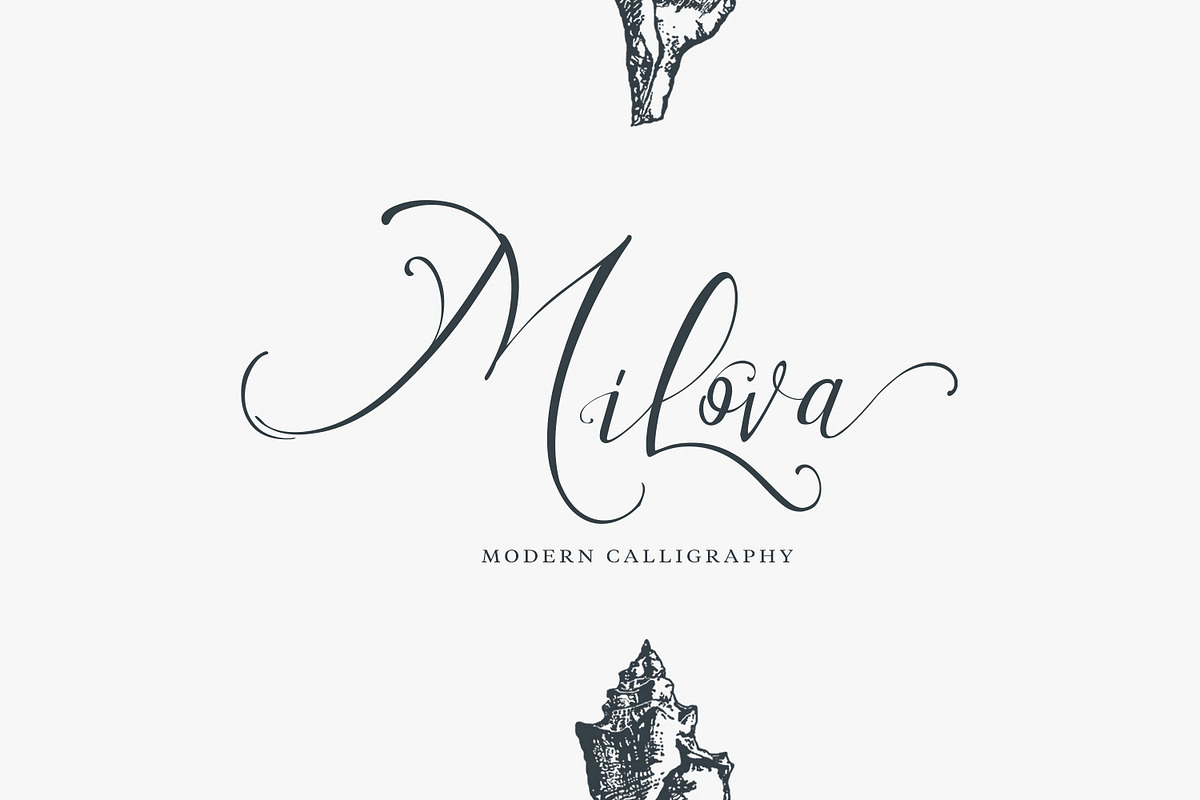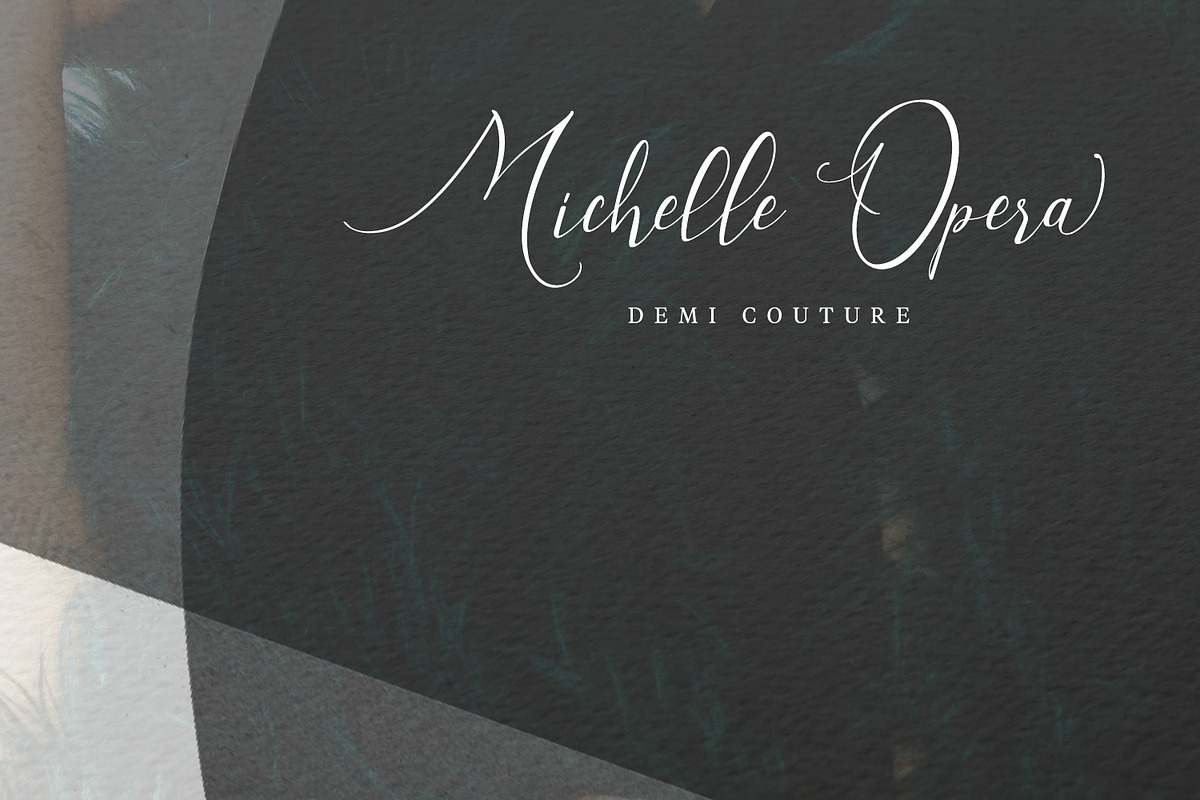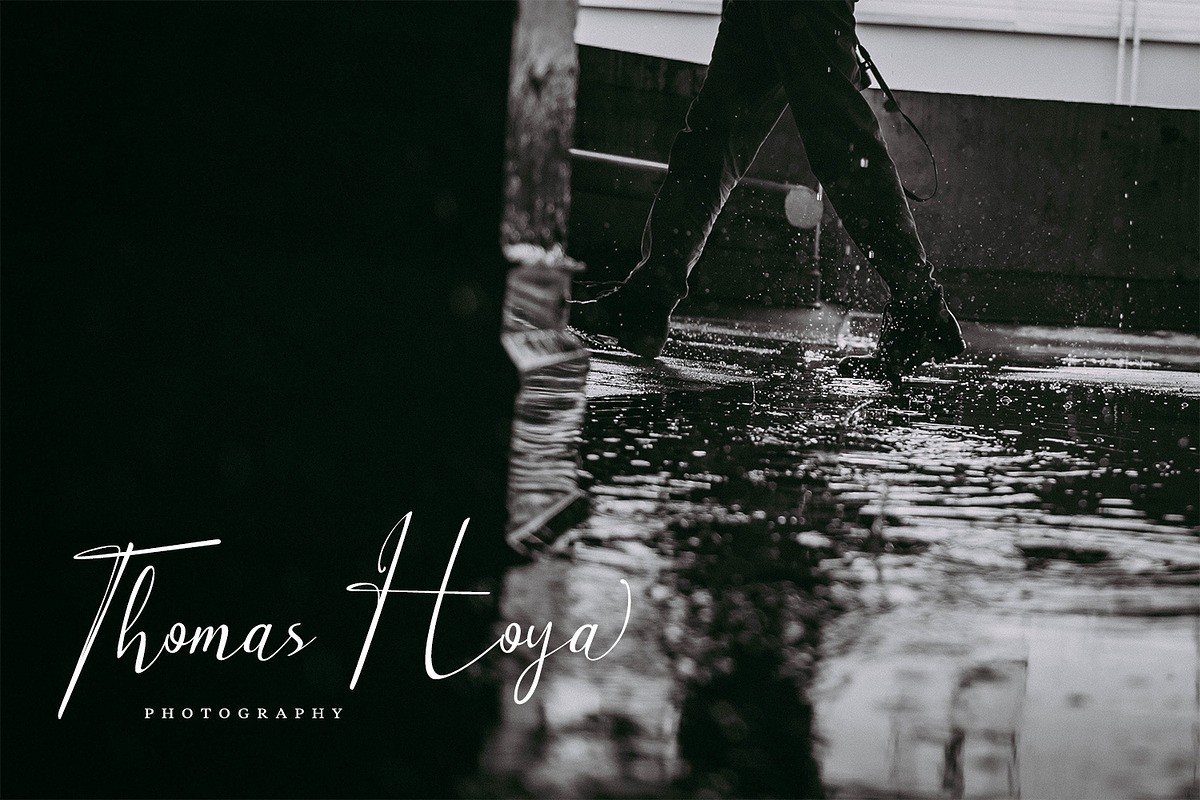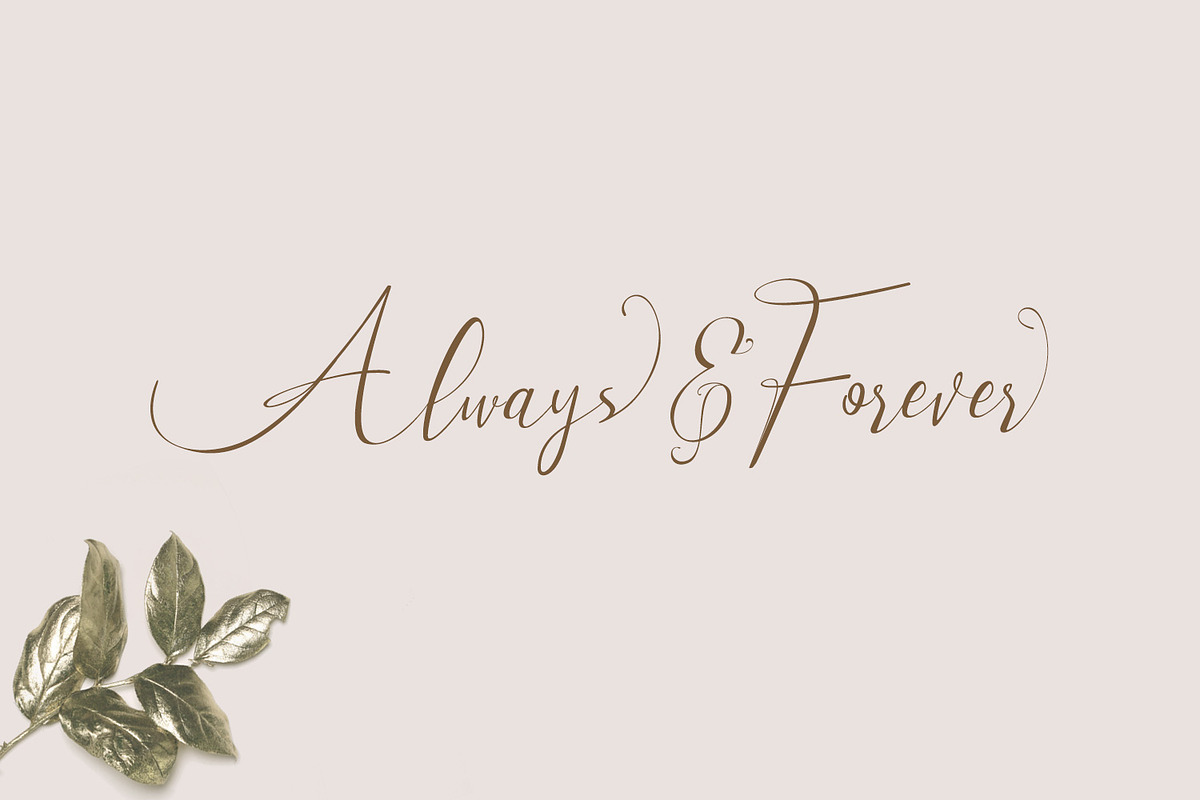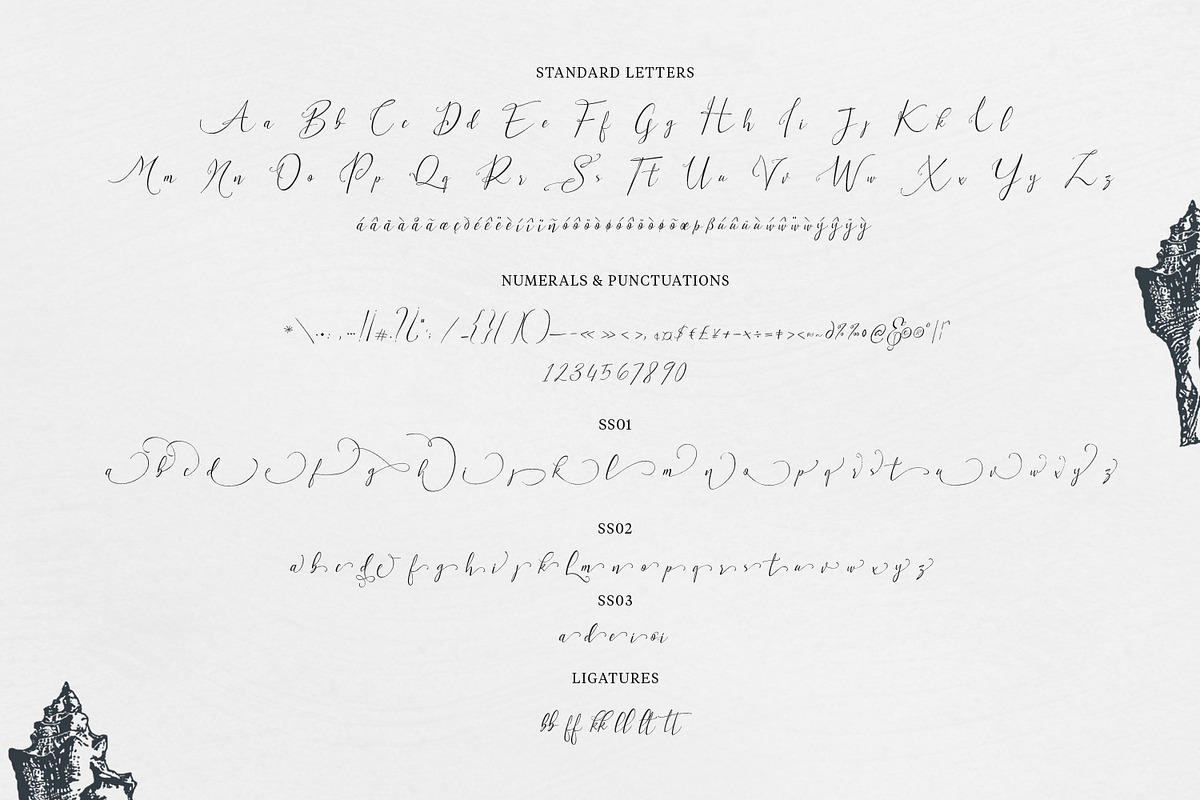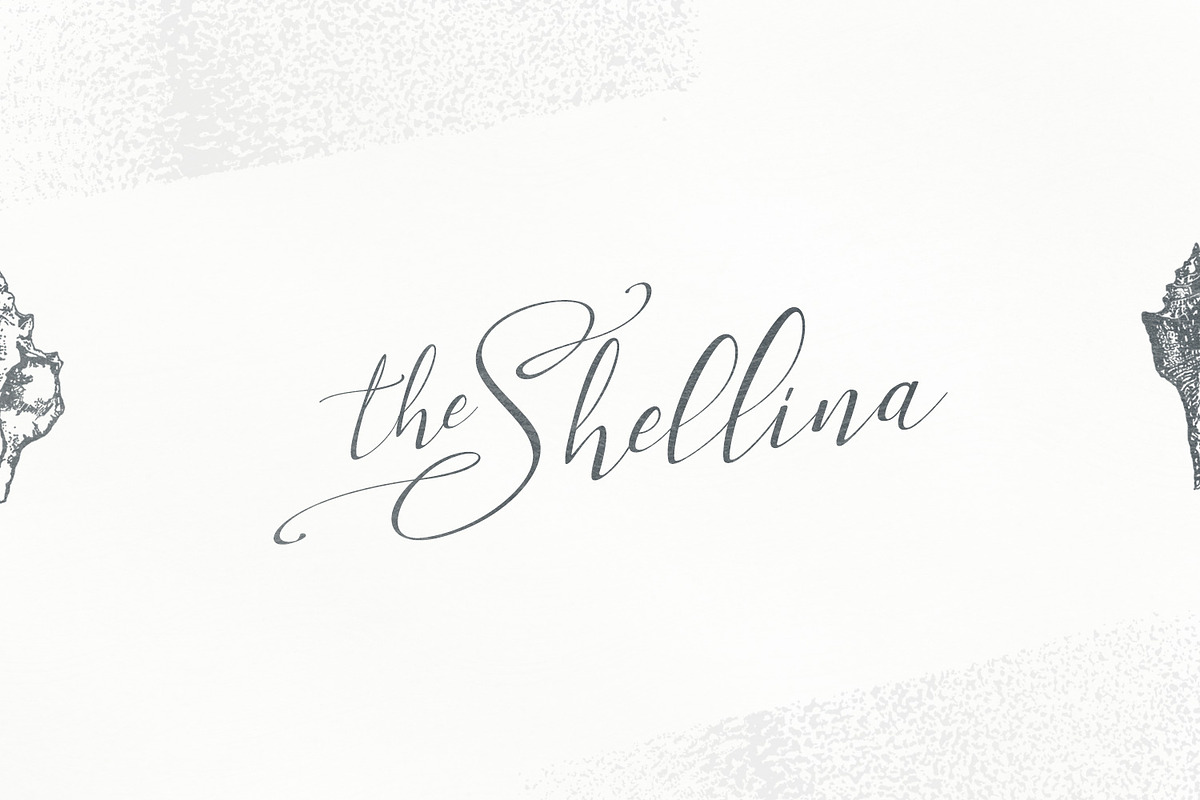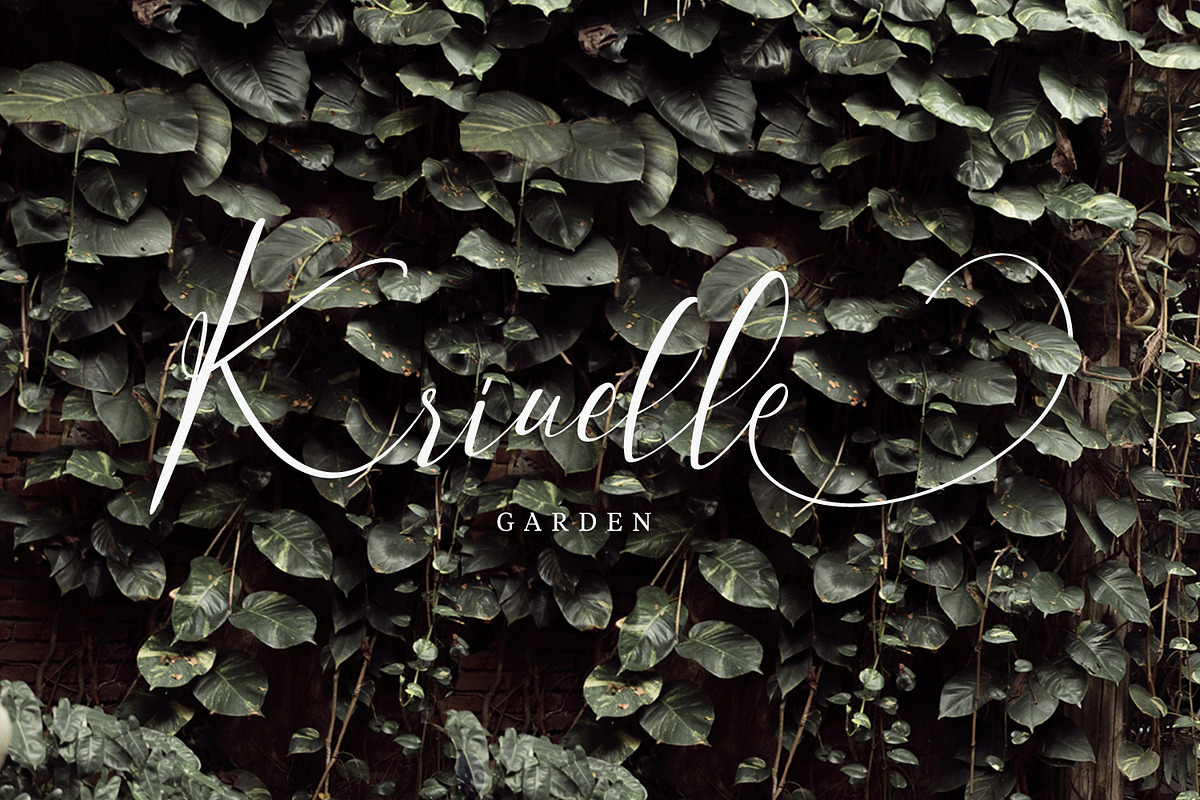
Milova | Modern Calligraphy font
Introducing Milova | Modern Calligraphy
Milova is modern unique font with flexible lines that creates a natural impression styles on your design. it comes with more than 280 Glyphs including alternates on each characters, arrange a beautiful font for wedding invitation card, book cover, logo, and more..
- Uppercase with some alternate
- Lowercase with alternates